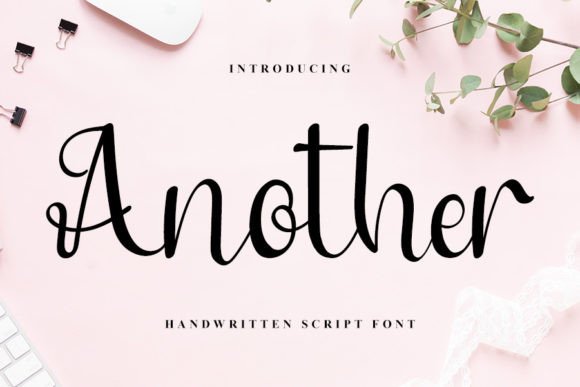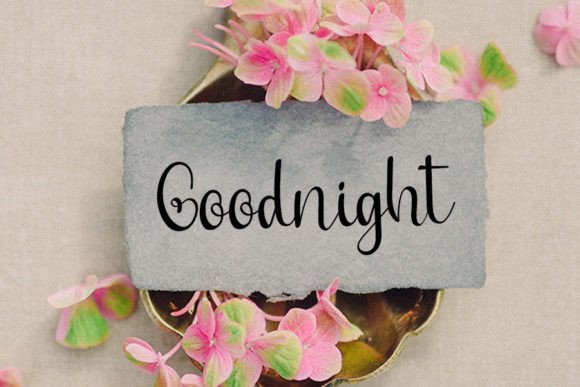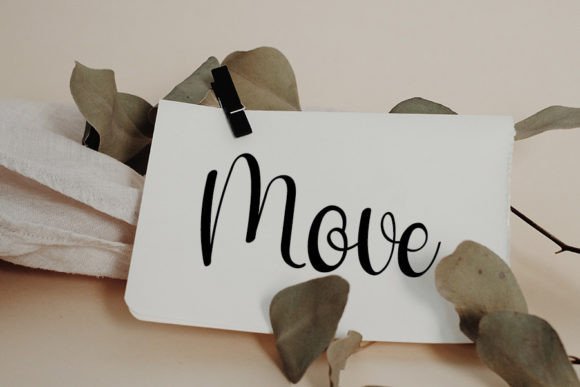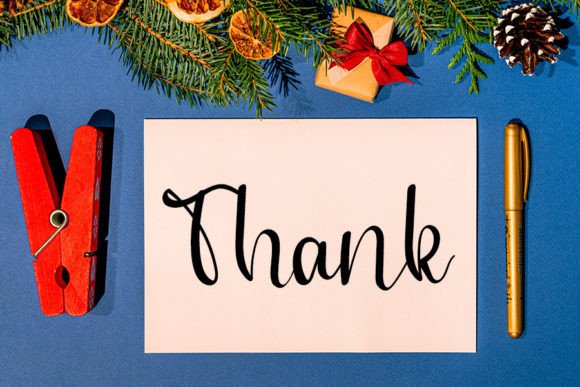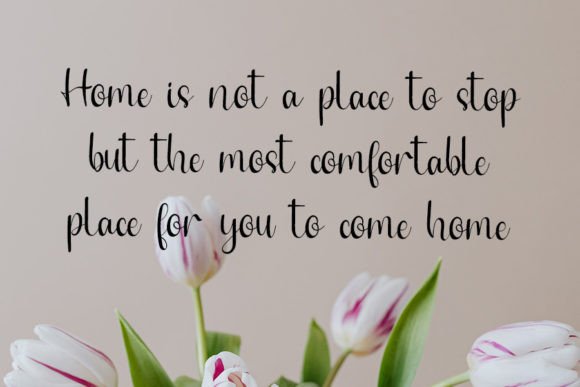
Another Font
About Another Font
“Another” is a meticulously crafted and elegant handwritten font celebrated for its neat and refined touch. It is an excellent choice for a wide range of creative projects and is distinguished by its distinct and timeless style. Designers can embrace this font to create breathtaking and visually captivating designs.
The versatility of “Another” makes it suitable for various design applications. Whether you’re working on branding, logo design, graphic design, or typography, “Another” offers a sophisticated and adaptable option.
In the realm of branding and visual identity, “Another” can play a pivotal role in establishing a polished and distinguished image for businesses and brands. Its elegant handwritten appearance lends an air of sophistication and timelessness, making it an excellent choice for those aiming to craft a unique and memorable brand identity.
When utilized in printed materials such as posters, flyers, and promotional collateral, “Another” imparts a sense of grace and uniqueness. Its handwritten script exudes authenticity and artistic finesse, making it an excellent choice for capturing attention and effectively conveying messages.
For personal projects such as invitations, greeting cards, and stationery, “Another” can add an extra layer of elegance and charm to your messages. It brings a sense of timeless beauty to your words, making it suitable for various special occasions and personal expressions.
In essence, “Another” is more than just a font; it’s a creative tool that introduces a neat and sophisticated ambiance to your projects. Its adaptability and timeless aesthetics make it a valuable asset for designers and individuals seeking to infuse their work with elegance and beauty, thereby enhancing the overall impact of their creative endeavors.